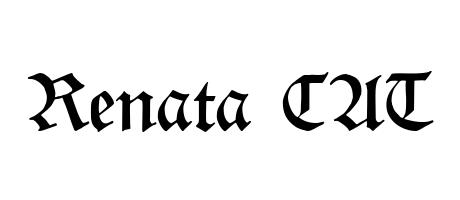
Renata CAT
By Peter Wiegel
Category Slab Serif, Serif, Blackletter, Gothic, Old English
Renata CUT, a font exuding medieval elegance, features sharply pointed serifs and tall, slender ascenders and descenders. Its blackletter style evokes a sense of history and formality, with the letterforms tightly knit yet possessing a graceful, almost calligraphic quality. The overall impression is one of refined sophistication and timeless classicism.